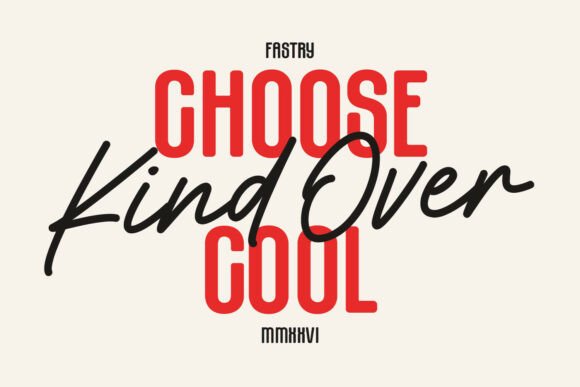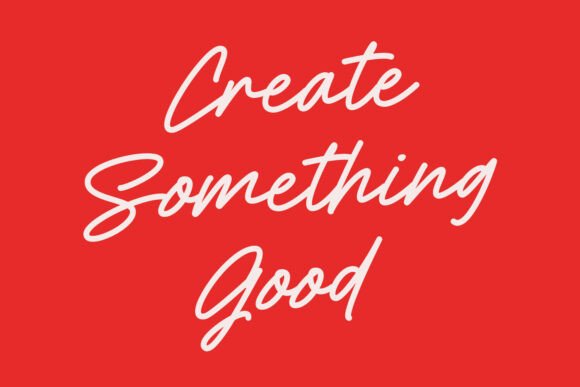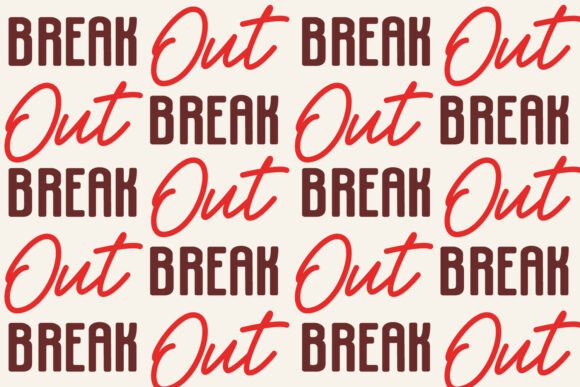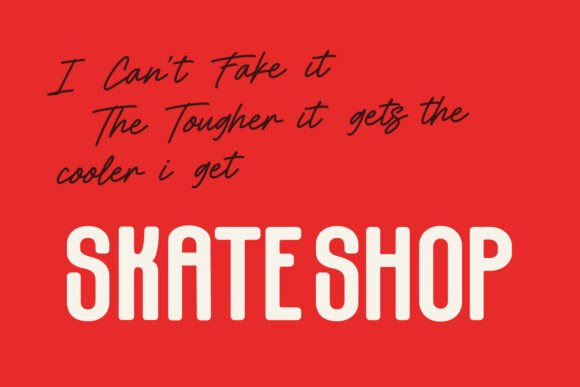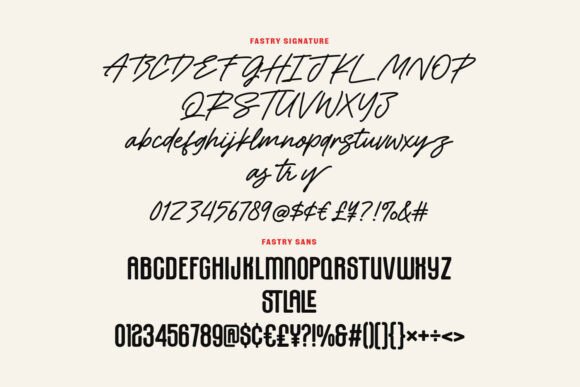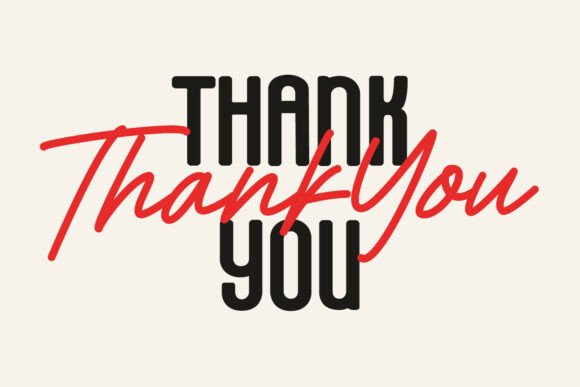
The Fastry Duo Font: Elevating Design with Elegance and Strength
In the world of typography, finding the perfect balance between elegance and strength is a quest many designers embark on. The Fastry Duo Font emerges as a beacon of innovation, combining a sleek, monolinear signature script with a commanding, ultra-condensed bold sans serif. This powerful pairing is not just a font; it’s a design statement that bridges the gap between human touch and corporate strength, offering a versatile tool for creators.
A Closer Look at the Fastry Font Duo
The Fastry Font Duo is a masterclass in visual contrast. On one hand, the script portion of the font offers fluid, effortless strokes that mimic high-end calligraphy. This aspect of the Fastry font is designed to bring a touch of luxury and sophistication to any design project. It’s an ideal choice for luxury branding, fashion logos, and personal watermarks, where a distinctive, high-end feel is paramount.
On the other hand, the bold sans serif component of the Fastry typeface is all about making a statement. Its heavy, impactful lines are perfect for grabbing attention and conveying strength and reliability. This part of the Fastry font duo works wonders in applications that require a commanding presence, such as magazine covers, social media quotes, and modern packaging.
The Power of Contrast: Balancing Human Touch with Corporate Strength
The true genius of the Fastry Font Duo lies in its ability to balance two seemingly disparate elements into a cohesive and powerful design tool. When paired, the script and sans serif fonts create a balanced hierarchy that can elevate any design project. This balance allows designers to convey a sense of intimacy and craftsmanship while also projecting a professional and robust image.
For designers and crafters, this means having a ready-made aesthetic that feels both professionally crafted and intimately personal. Whether you’re designing a boutique storefront, crafting a digital ad campaign, or simply looking for a distinctive touch for your social media posts, the Fastry font provides a versatile solution that meets a wide range of design needs.
Applications of the Fastry Font Duo
The versatility of the Fastry Font Duo makes it suitable for a myriad of applications. Here are a few ideas to get you started:
- Luxury Branding: Use the script portion of the Fastry font to create elegant and memorable brand identities.
- Fashion Logos: The fluid strokes of the Fastry script font are perfect for creating distinctive and stylish fashion logos.
- Magazine Covers: Combine the bold sans serif with the elegant script to create eye-catching magazine covers.
- Social Media Quotes: Use the contrasting fonts to make your social media posts stand out and convey your message with impact.
- Modern Packaging: The Fastry font duo can add a touch of elegance and professionalism to product packaging, making it perfect for boutique brands.
The Fastry Duo Font is more than just a typeface; it’s a design solution that offers the perfect blend of elegance and strength. Its unique combination of a sleek, monolinear signature script and a commanding, ultra-condensed bold sans serif makes it an indispensable tool for designers and crafters looking to create impactful and memorable designs. Whether you’re aiming for luxury branding, fashion logos, or simply looking to elevate your digital content, the Fastry Font Duo provides the versatility and aesthetic appeal to bring your vision to life.
Embrace the power of contrast with the Fastry Font Duo and discover a new world of design possibilities that blend the best of both worlds: the human touch and corporate strength.